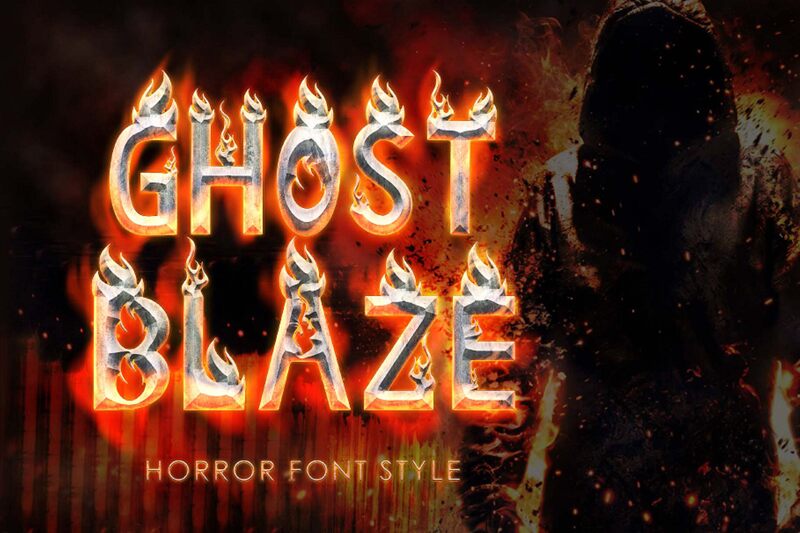
Ghost Blaze font by Yoga Letter is a free horror typeface that sets a spooky and intense tone with its unique design. The font integrates flaming elements, which unleash an energetic vibe for an attention-grabbing and dramatic effect. It can easily be incorporated into horror-inspired, thematic design projects to inject liveliness and excitement into a project.
Ghost Blaze font is ideal for poster designs, book covers, and magazine covers. Other areas where it can be implemented include website headers, social media, branding projects, movie covers, and advertisement materials in both print and online.